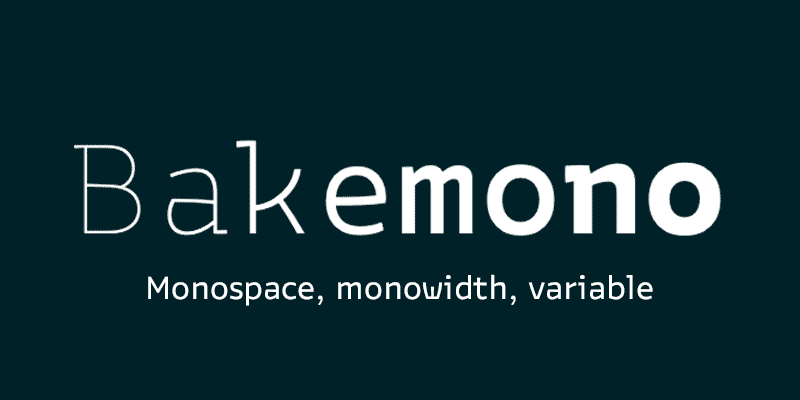
Bakemono Variable Font Free Download is a bold, expressive grotesque typeface that combines utility with an edge of rebellious energy. Designed for designers who love contrast and flexibility, Bakemono offers wide proportions, sharp details, and a distinctive rhythm that makes it ideal for branding, editorial, packaging, and bold digital interfaces.
With full variable font functionality, Bakemono Variable Font Free Download gives you smooth control over weight—allowing you to dial in everything from whisper-thin text styles to heavy, in-your-face headlines using a single font file. This makes it perfect for responsive layouts, typographic systems, and projects where typographic variation and personality matter.
What sets Bakemono apart is its character. It maintains the clarity of a workhorse sans-serif while adding just enough quirk to give your typography a distinct voice. Whether you're designing tech identities, fashion campaigns, posters, or web experiences, Bakemono brings a modern, structured feel with a touch of unpredictability.
Bakemono is not just functional—it’s fearless. Let it power your typography with confidence, character, and complete creative control.